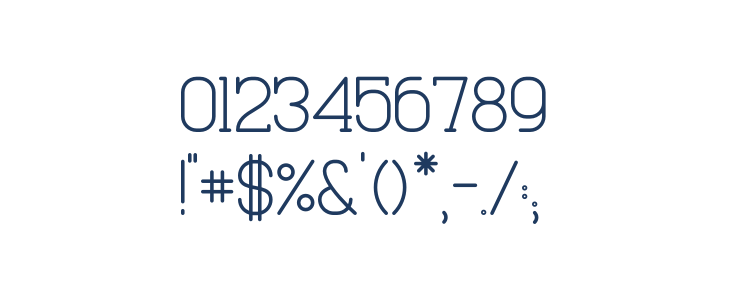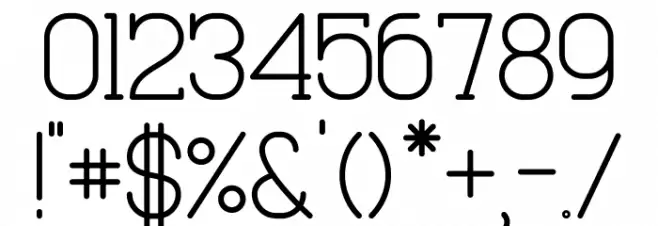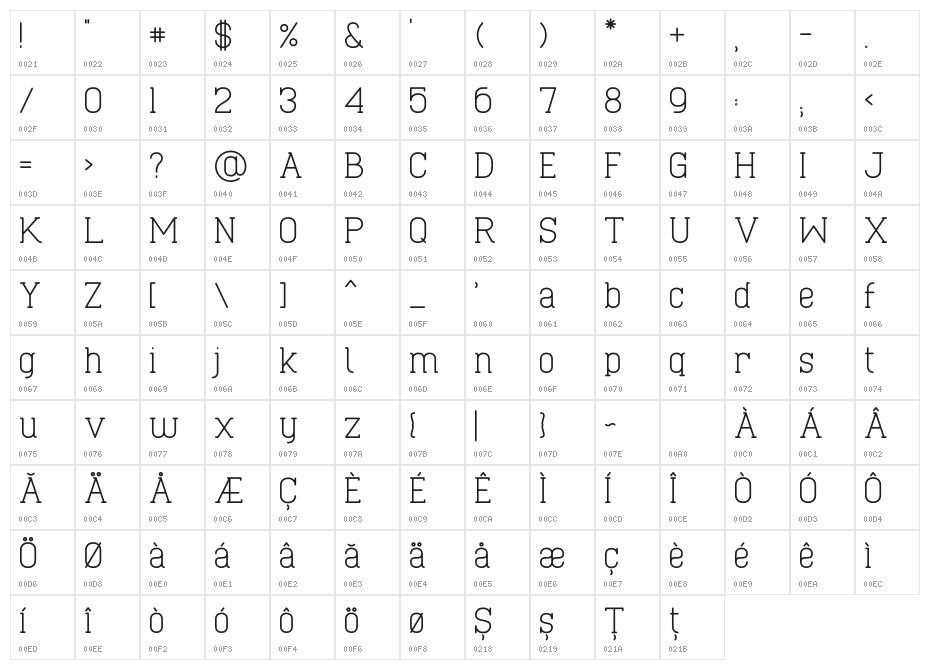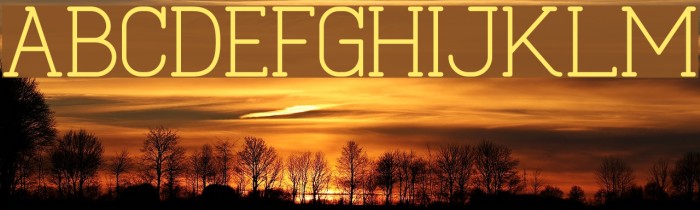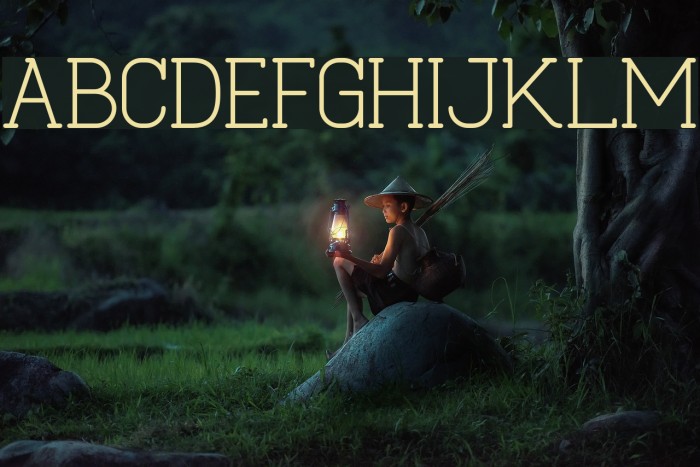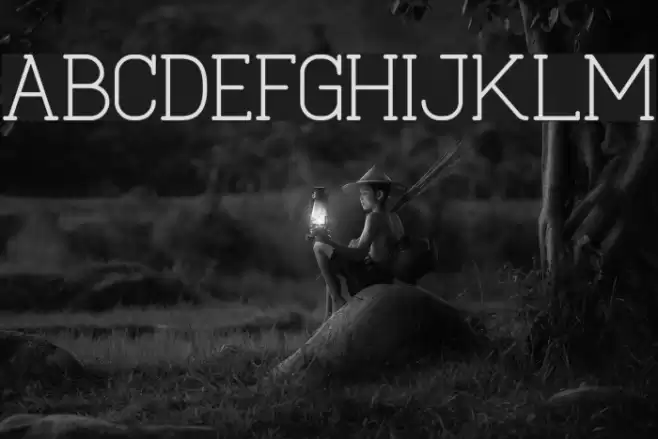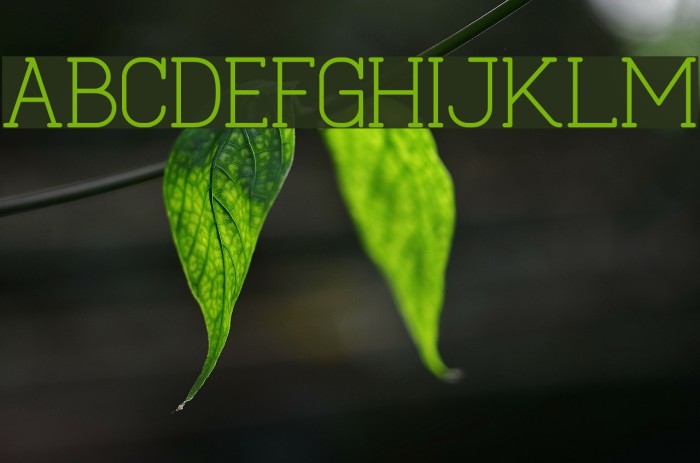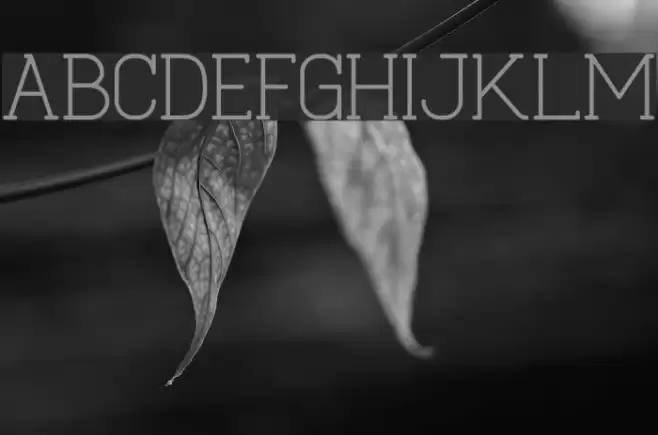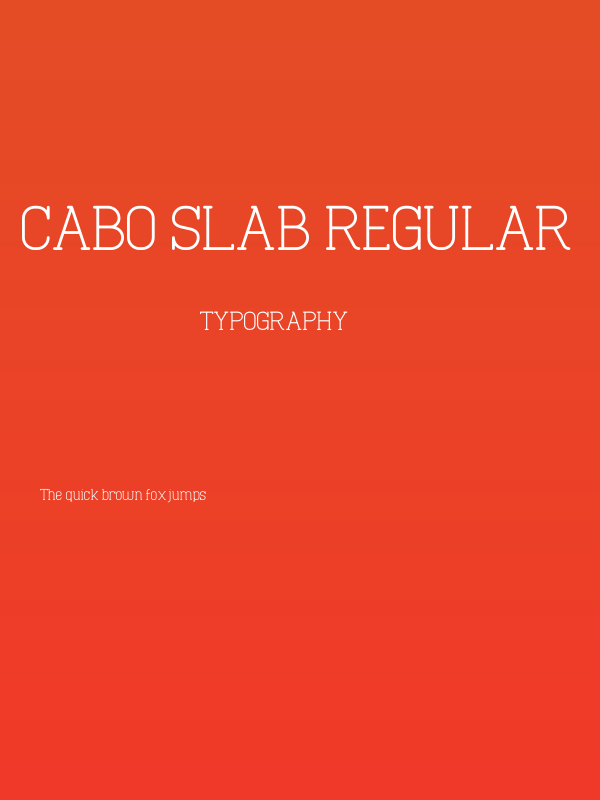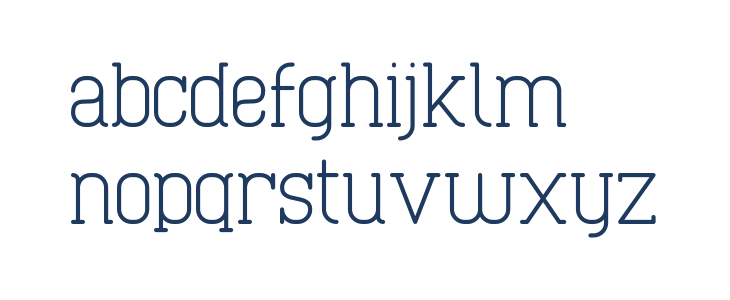
Cabo Slab Regular Font
Cabo Slab Regular Description
This font features a clean and modern slab serif style, characterized by its geometric shapes and consistent stroke widths. The uppercase letters are bold and assertive, while the lowercase letters maintain a friendly and approachable appearance. The numerals are clear and easily distinguishable, making them suitable for various applications. Special characters are well-integrated, ensuring versatility in design projects. The overall design is balanced, with a slight emphasis on vertical strokes, providing a harmonious and readable text experience.